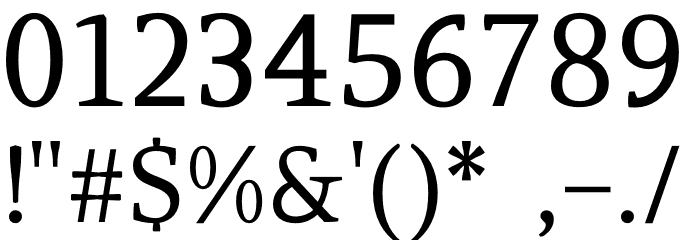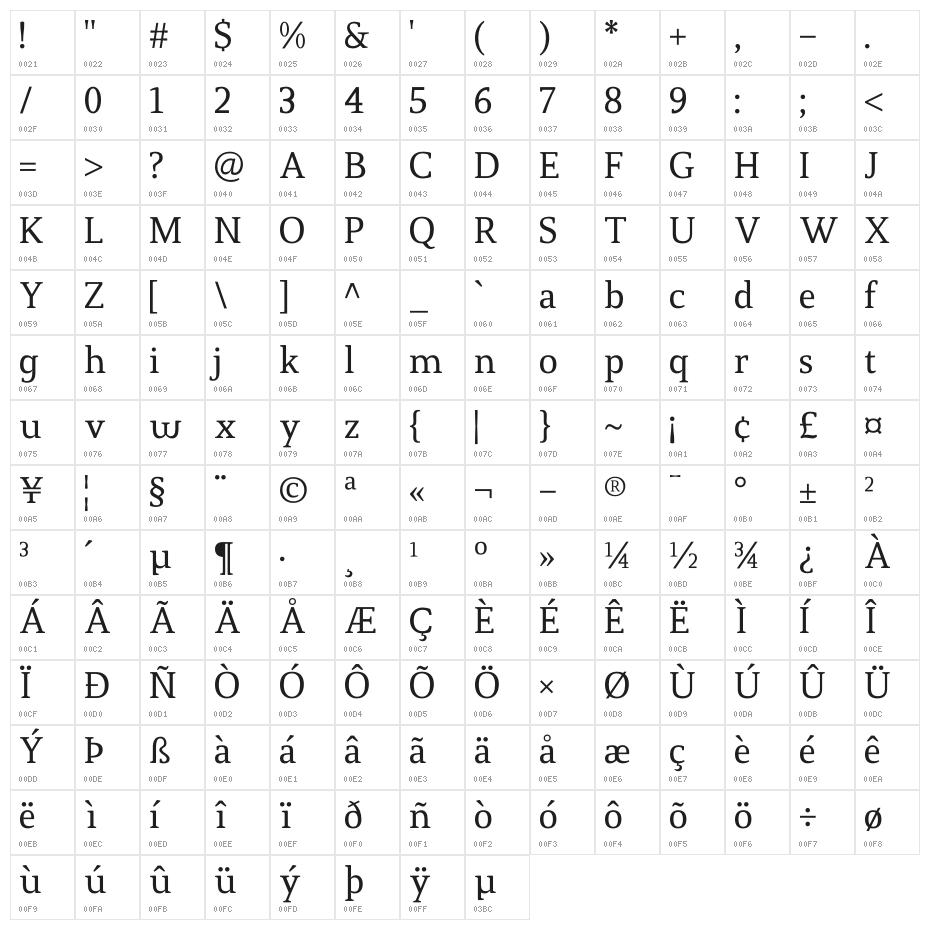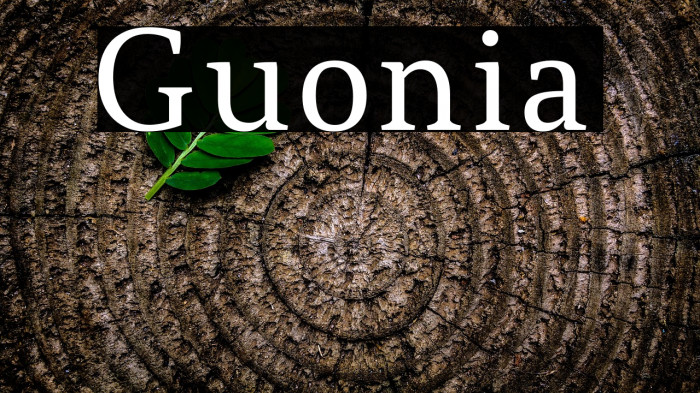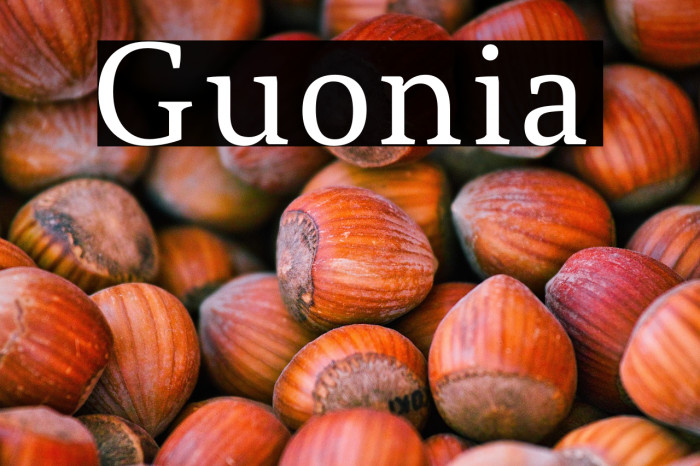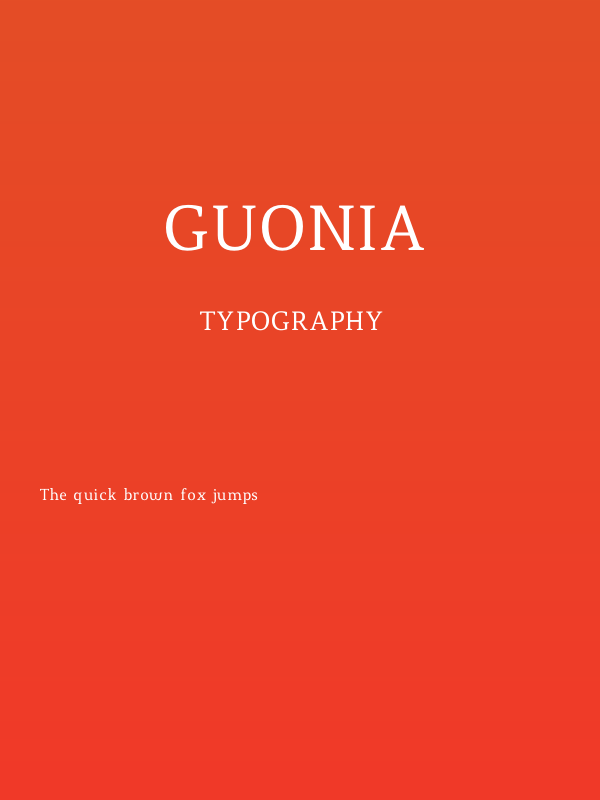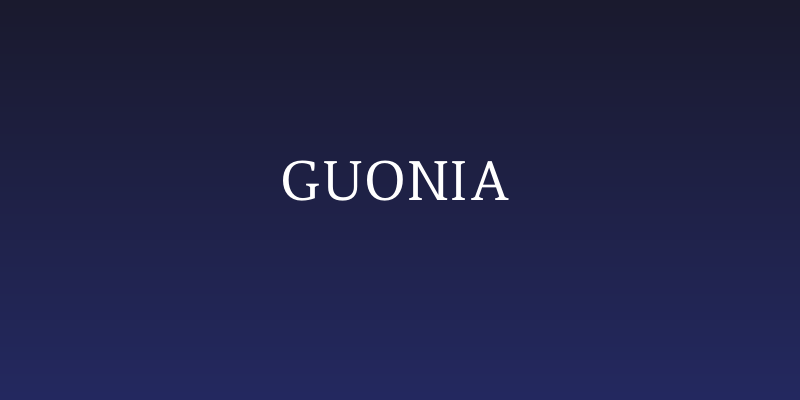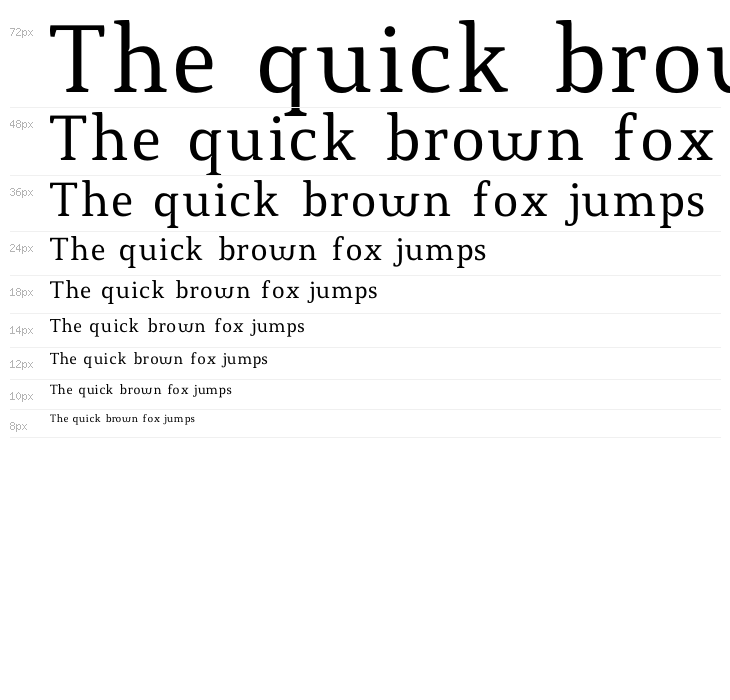
Guonia Font
Guonia Description
This font features a classic serif design with a modern twist, offering a blend of traditional elegance and contemporary style. The serifs are pronounced yet refined, providing a sense of stability and sophistication. The uppercase letters are bold and commanding, while the lowercase letters maintain a graceful flow. The numerals are clear and distinct, ensuring readability. Special characters are well-integrated, maintaining the overall aesthetic. This font is versatile, suitable for both formal and creative applications, making it a great choice for a variety of design projects.
| Proposed Projects | Ideal for editorial design, branding, book covers, and formal invitations. |